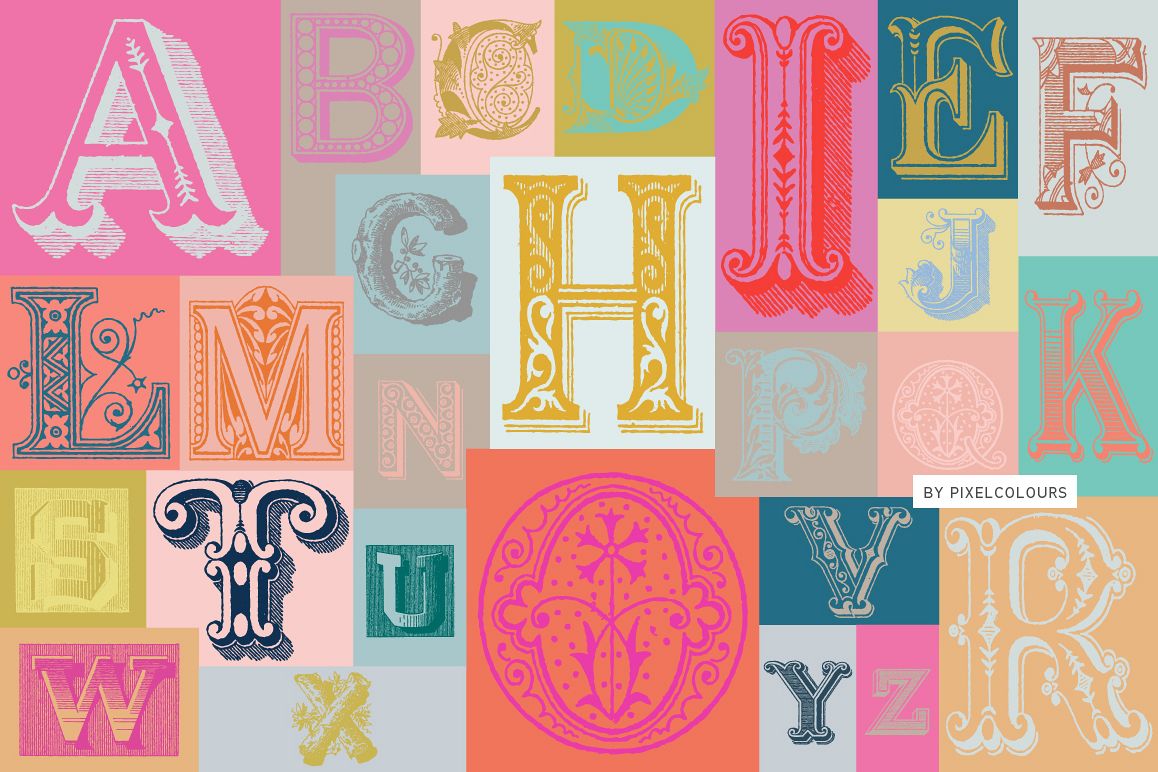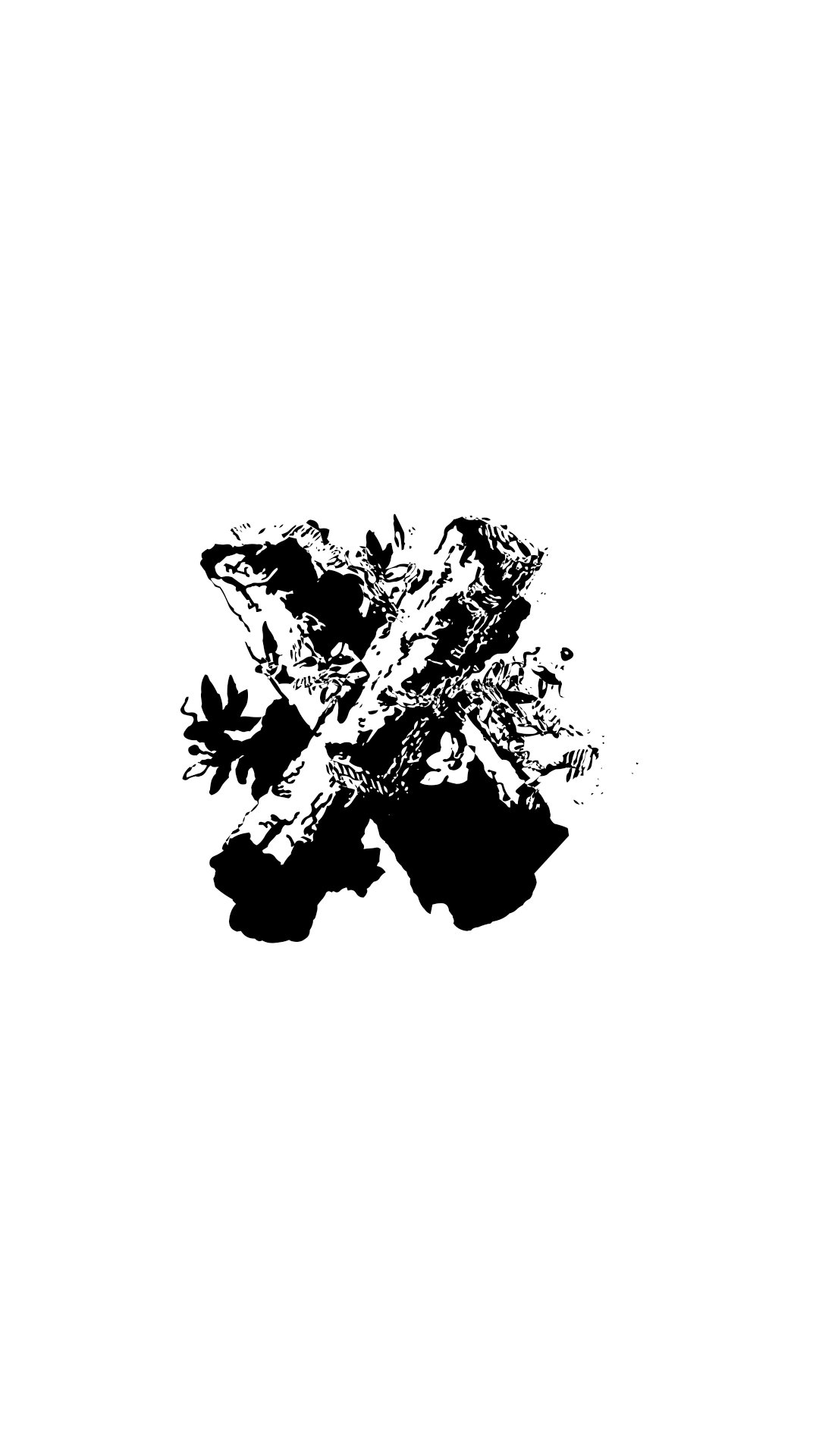
Antique Ornaments Alphabet Font
Antique
Ornaments Alphabet Font is an ornamental alphabet great for doing
monogramed products, crafts, etc.
Uppercase letters only A-Z